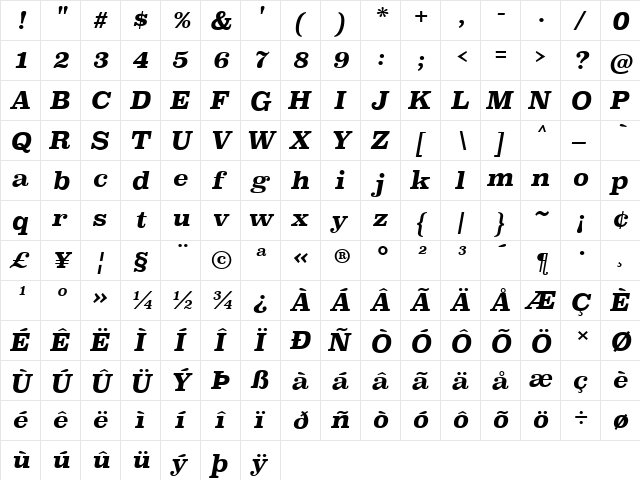
Superclarendon Bold Italic
Design Context for Superclarendon Typeface
Superclarendon features prominent, blocky serifs that give it a confident, grounded presence — equally at home in editorial settings and bold branding work. Its italic angle brings a sense of urgency and motion to the letterforms. Its bold stroke weight gives it real presence on the page.
Suited to magazines, political campaign materials, bold packaging, and any setting where authority matters.
Pro Tip: Use Superclarendon for headlines and subheadings where its slab serifs can make an impression. It also holds up well in mid-size body copy thanks to its sturdy construction.